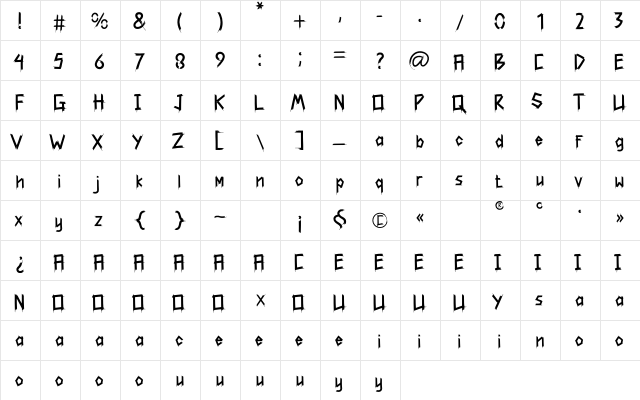
Jouright Bold
| Designer | Randi Ilhamsyah // Vasgaz Creative |
Design Context for Jouright Typeface
Jouright is a composed and adaptable typeface that performs quietly and consistently across a wide range of design contexts. The heavy weight commands attention and anchors typographic hierarchies.